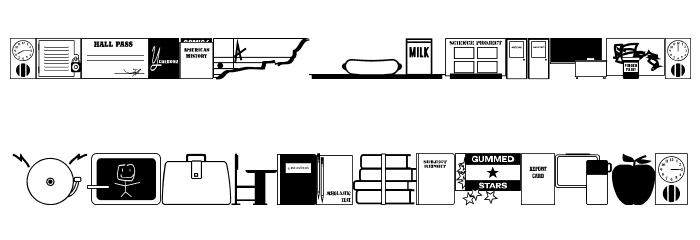
School Daze JL Font
School Daze JL Description
This font is a playful and decorative typeface that draws inspiration from school-related themes. Each character is creatively designed to resemble various school items, such as hall passes, milk cartons, and gummed stars. The font features a unique and whimsical style, making it highly distinctive and eye-catching. It is not suitable for traditional text but serves as a fun and thematic option for specific projects. The characters are detailed and illustrative, providing a nostalgic and educational feel.
A playful, school-themed decorative font with characters resembling educational items from Dingbats fonts.
- Proposed Projects: Ideal for school event posters, educational materials, children's book covers, and playful invitations.
- Use Case: Logos, Headlines